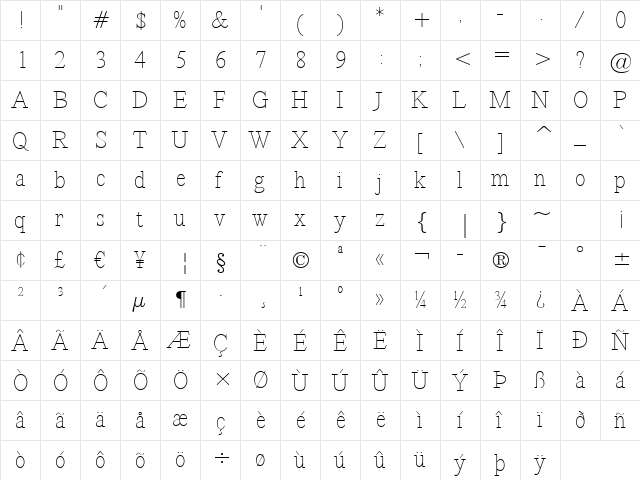
Revelation BTN Lt Regular
Revelation BTN Lt takes a measured approach to typography — its balanced proportions and neutral character make it a reliable workhorse for both digital and print work. Its slender proportions lend an understated elegance to any composition.